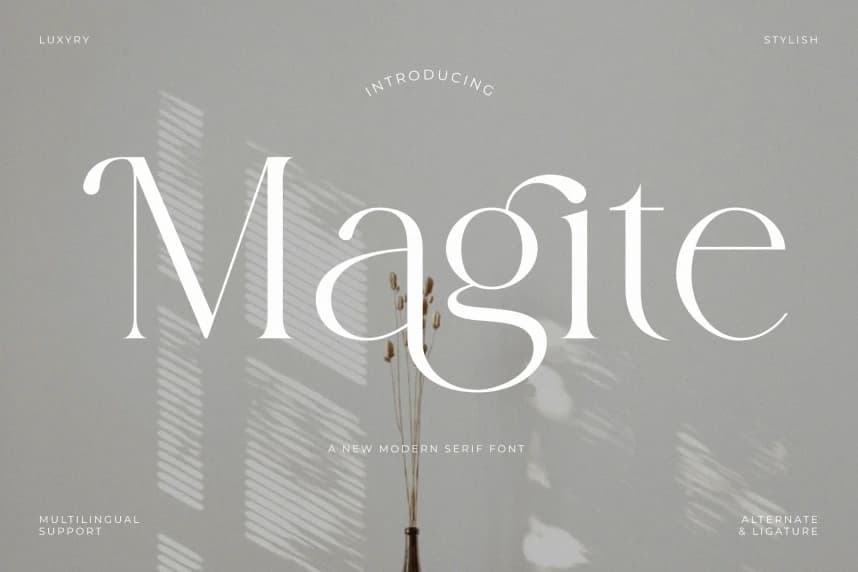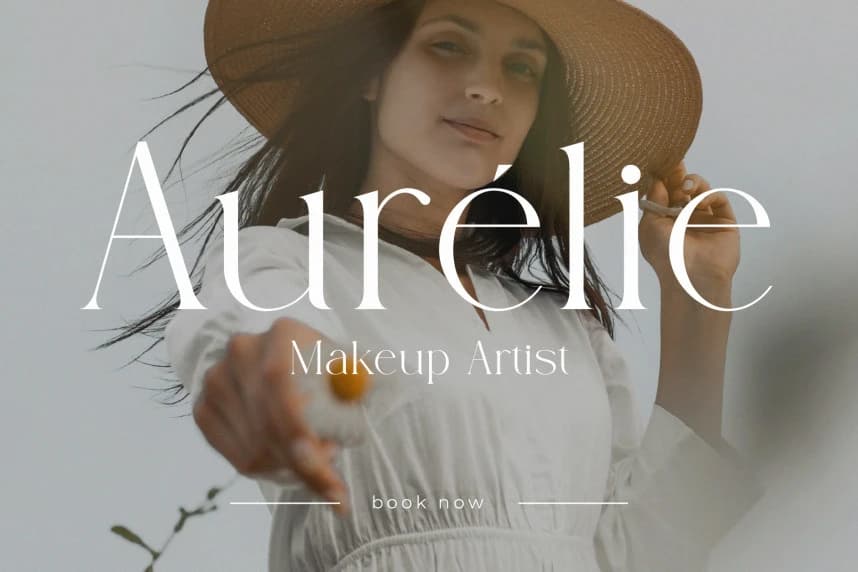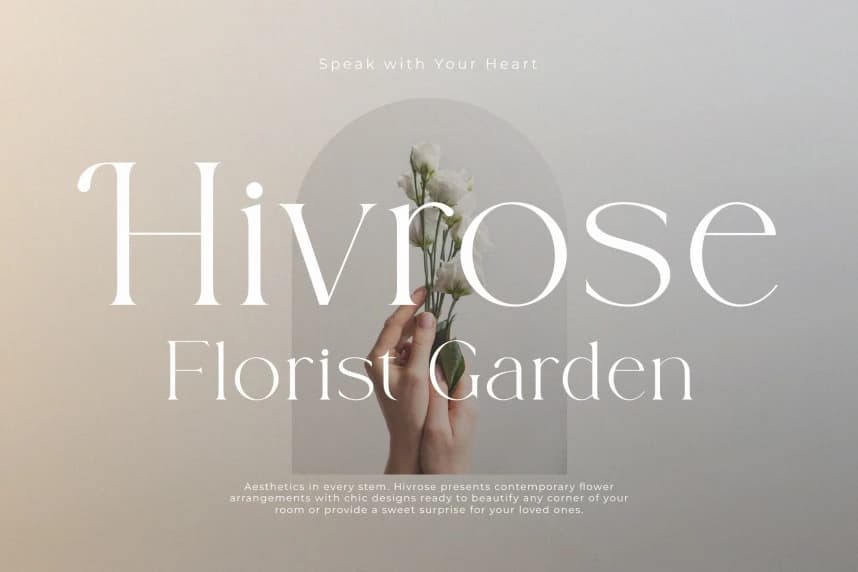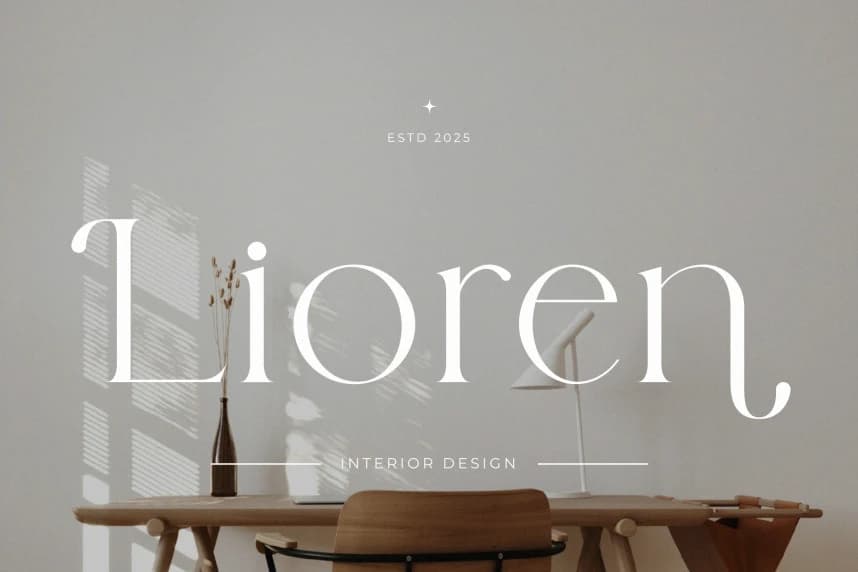
Magite Font
Magite Font the elegant, beautiful, and modern Serif. With its modern and minimalist look, Magite brings a luxurious, classy, and clean style to your projects such as websites, modern logos, brand identities, social media quotes, wedding stationery, magazines, and more!